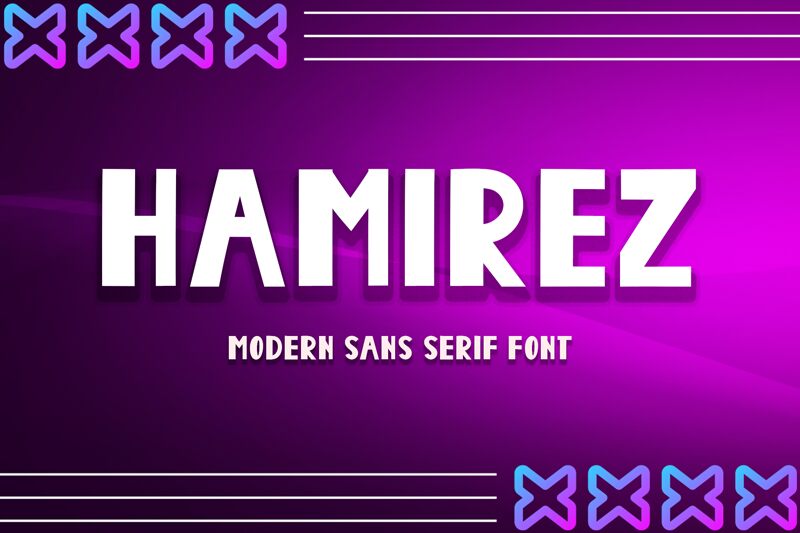
Hamirez
Hamirez, a bold and condensed display font crafted by Yoga Letter, exudes a striking, contemporary aesthetic. Its geometric forms and sharp, angular lines create a distinctive visual presence, lending an air of modern sophistication. The font's compact width and robust weight establish a strong, impactful typographic presence, making it well-suited for attention-grabbing headlines, prominent branding, and eye-catching designs.
Hamirez's versatility extends beyond its visual appeal, as its bold, condensed nature allows it to excel in a variety of applications. From editorial layouts and promotional materials to product packaging and digital interfaces, this font's versatile character can elevate the impact and legibility of textual elements across diverse design contexts.